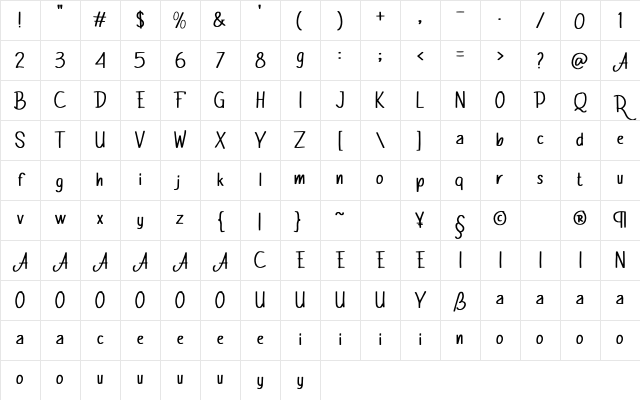
Complete Momblano Proud Regular glyph index. Displaying only characters natively supported by Momblano Proud Regular font.
Momblano Proud is a composed and adaptable typeface that performs quietly and consistently across a wide range of design contexts.
Pro Tip: Use Momblano Proud in both headline and body roles to test its range before committing to a single application.